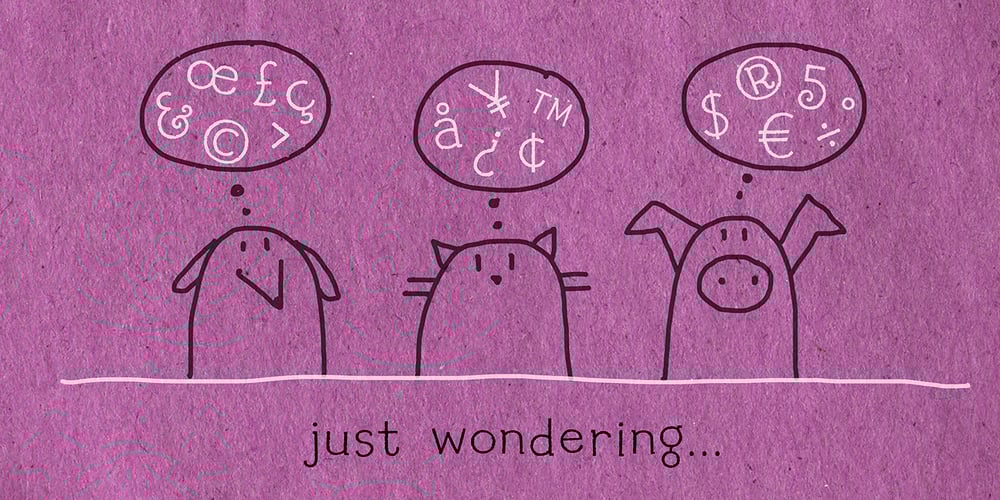
Reading
Reading font
Reading Font Family was designed by Amy Dietrich and published by Atlantic Fonts. Reading contains 1 styles and family package options. Reading is fun; legible with a playful wiggle, a bit of texture, and a lively set of double-letter ligatures. Reading wants to be read aloud and sounded out – lightened by comic relief and sweetened by a bit of style. The upper case is relatively straight, the lower case – slightly jumbled, and Reading’s numbers have excellent curls.